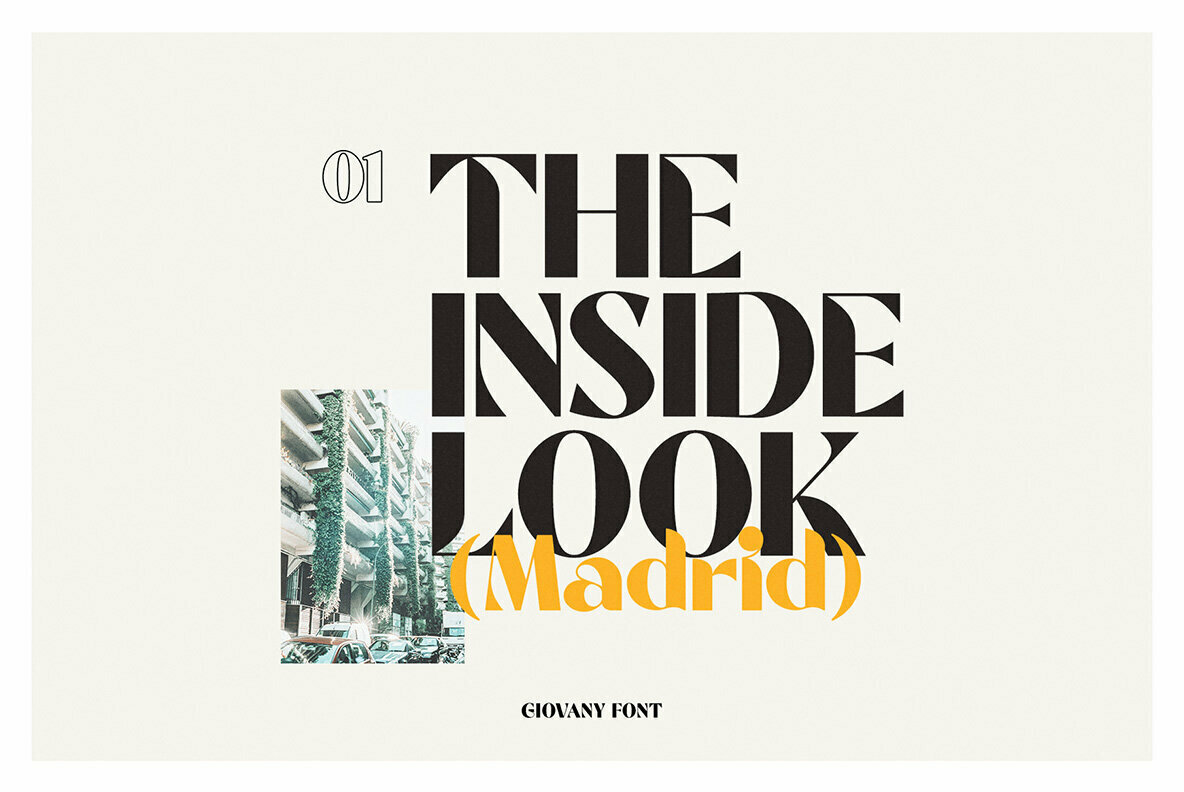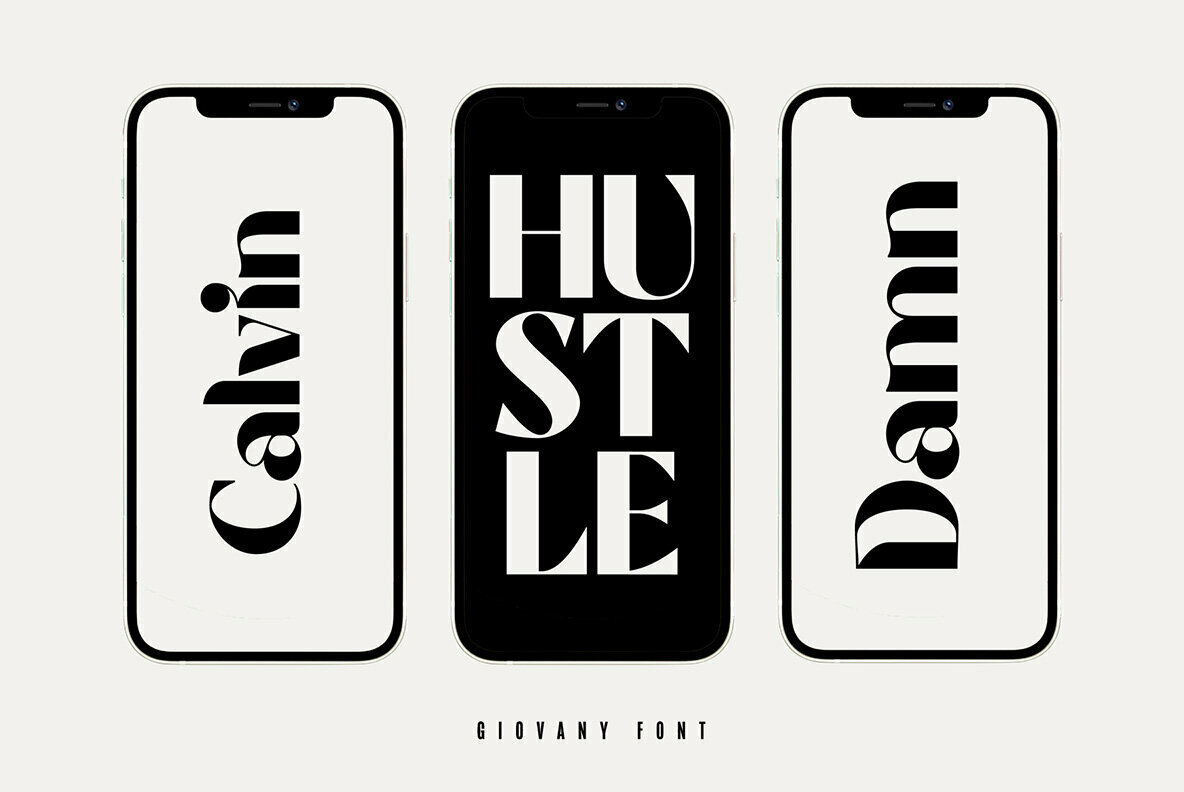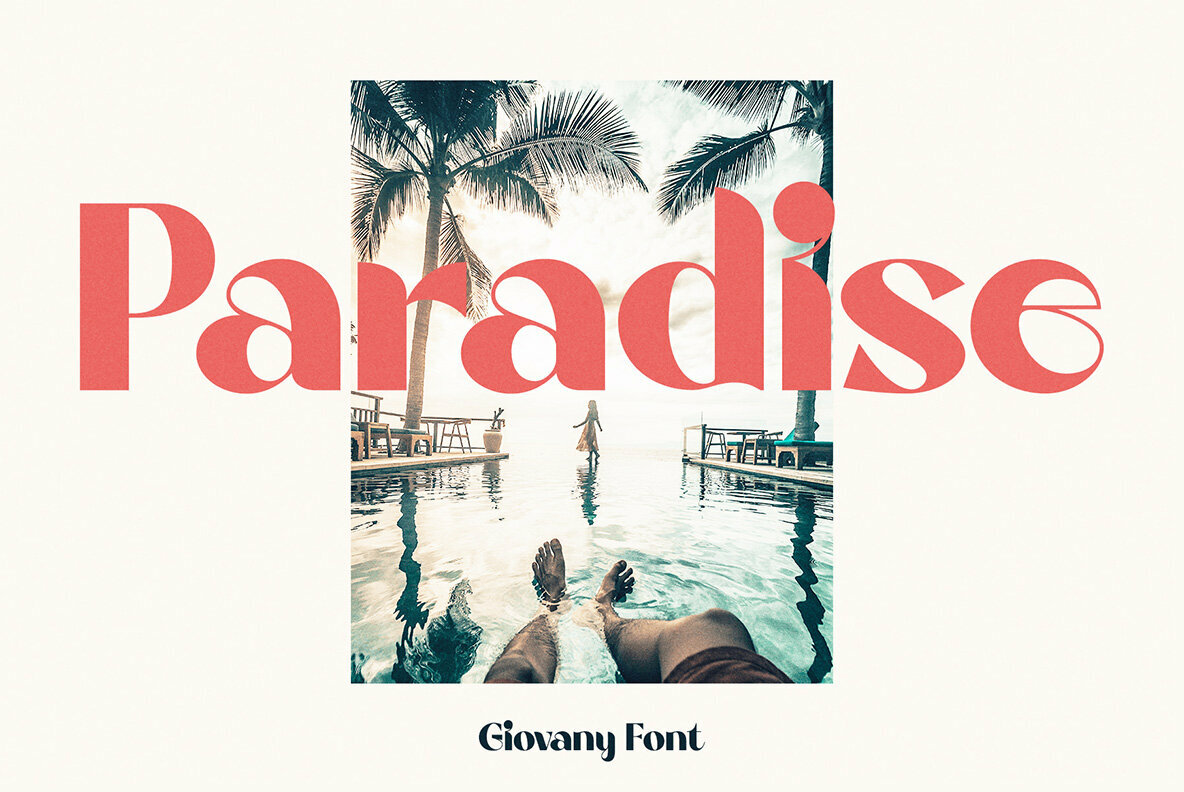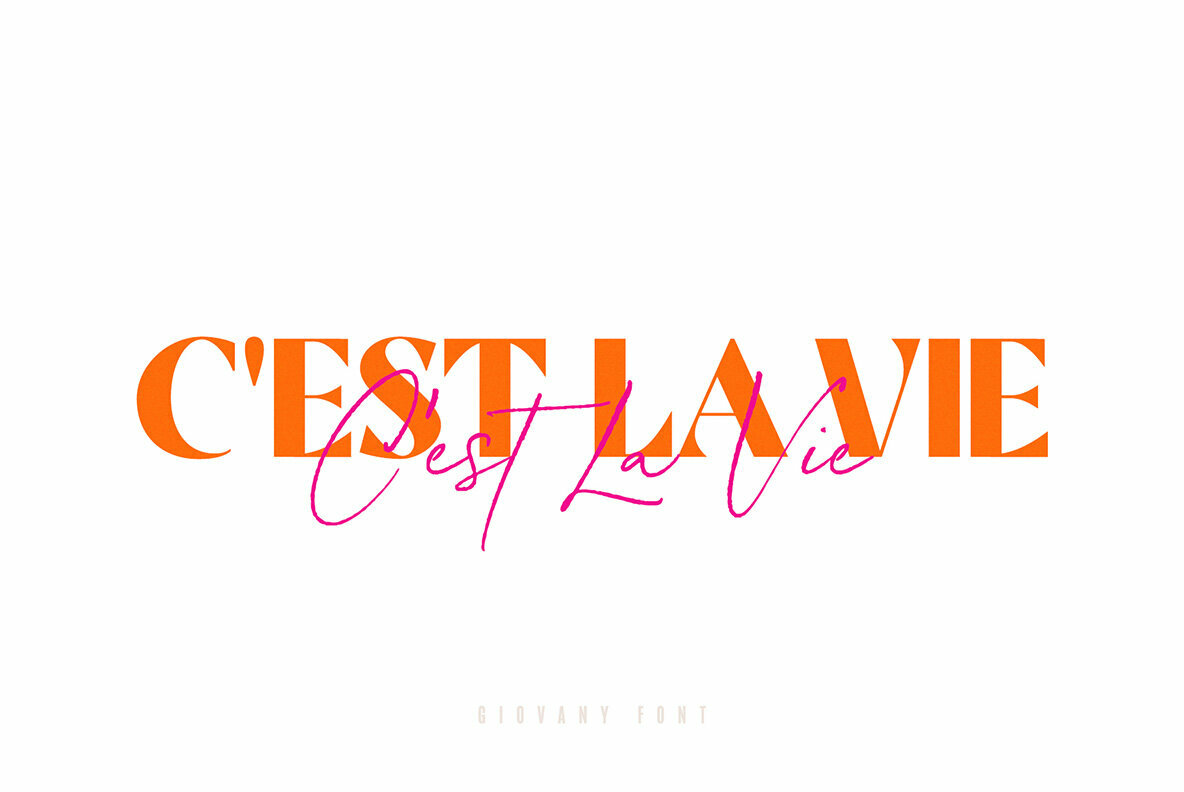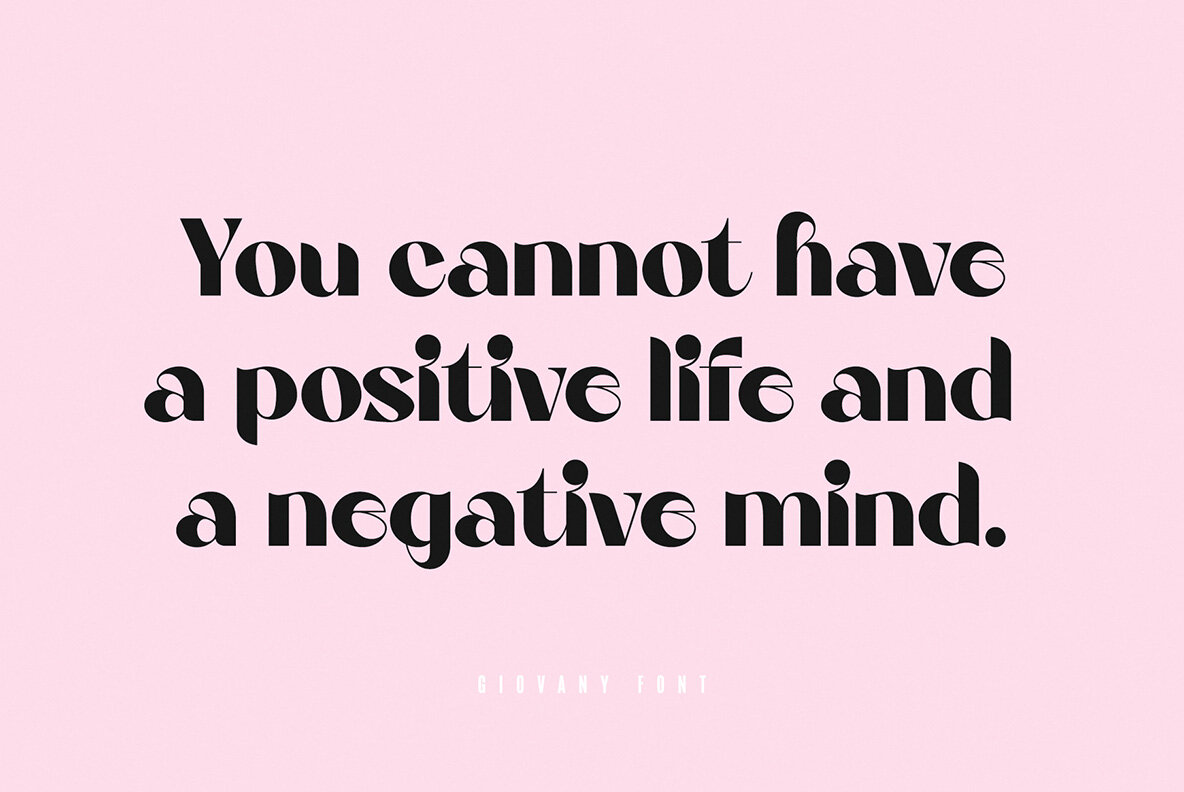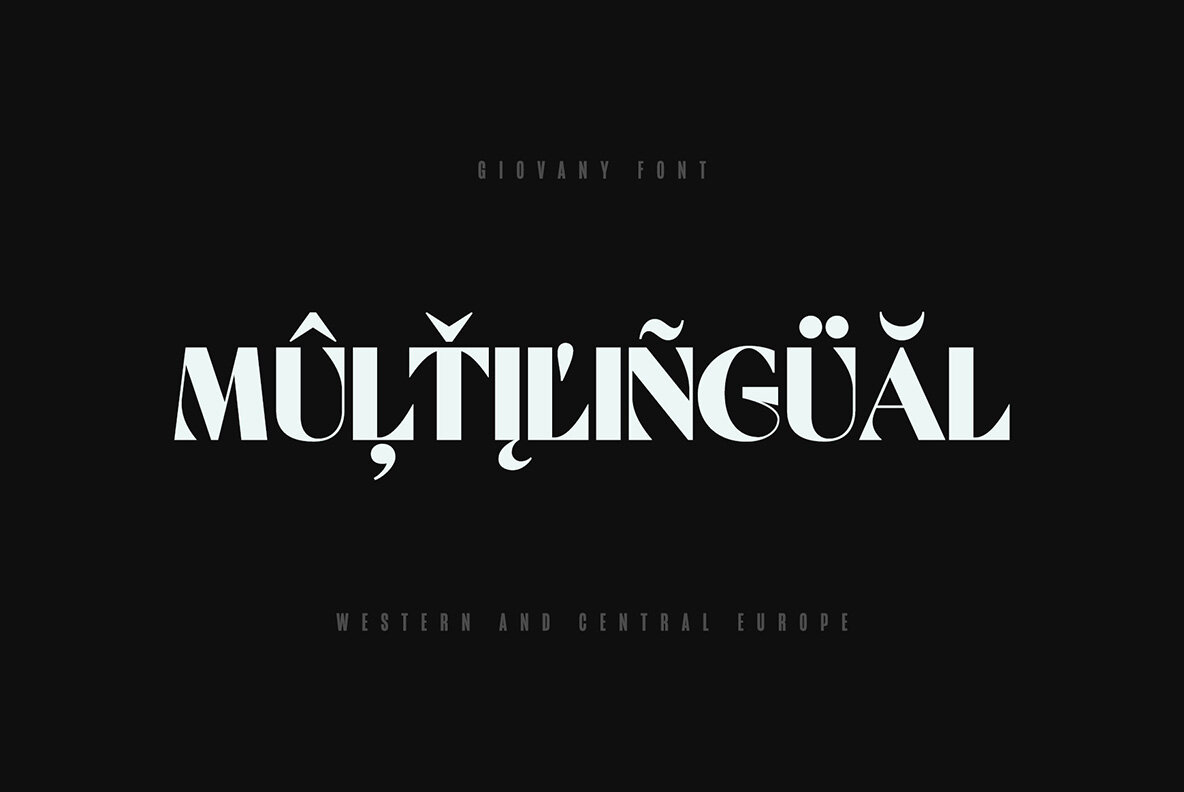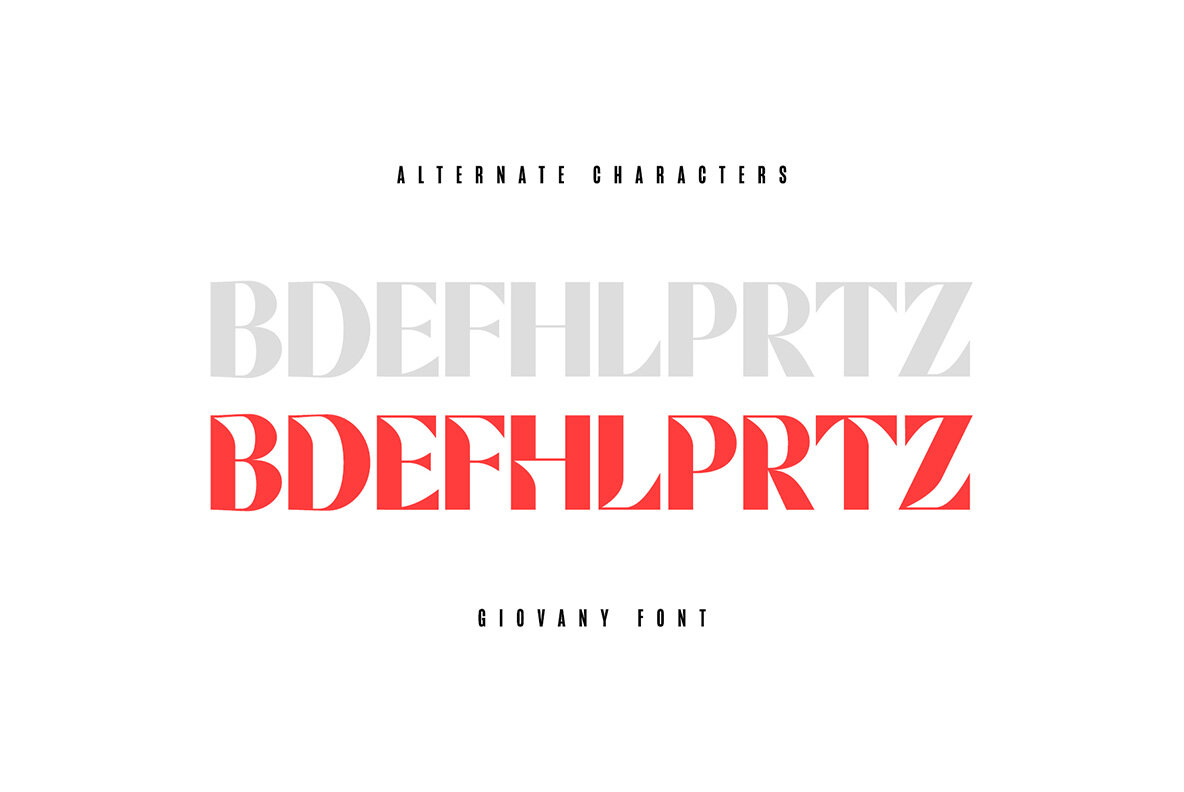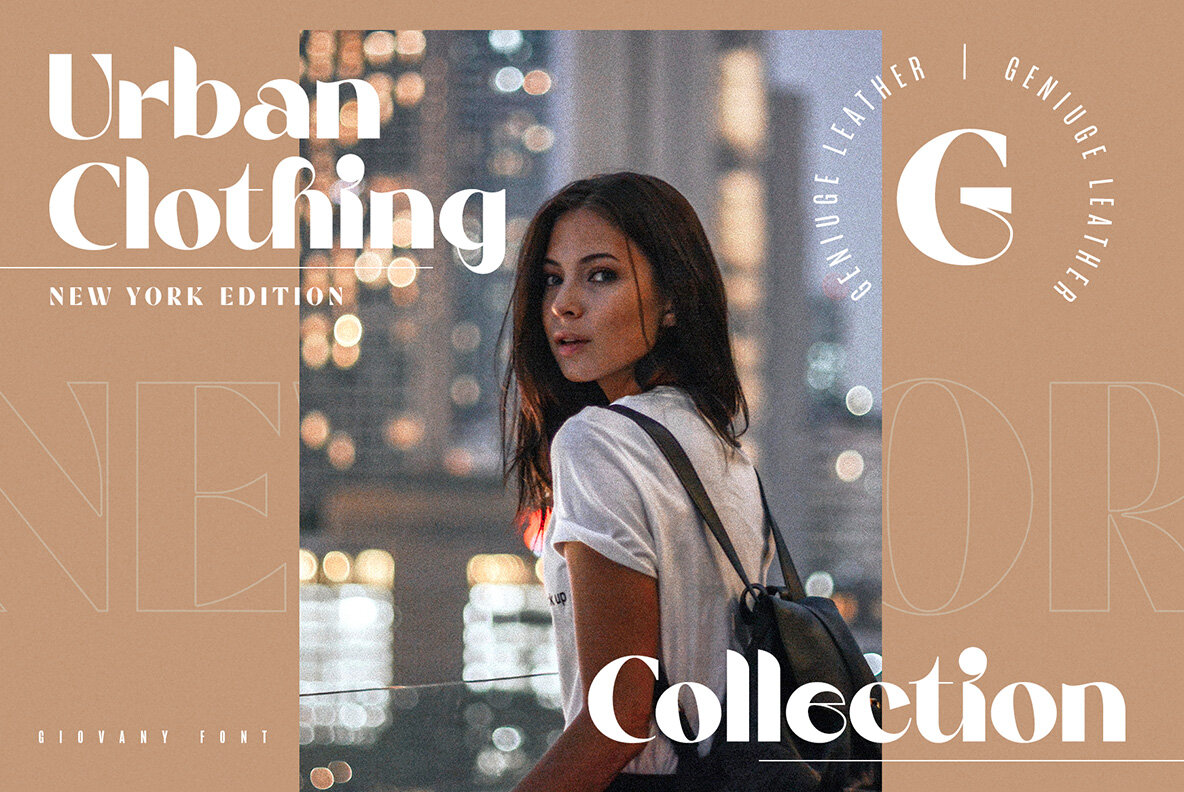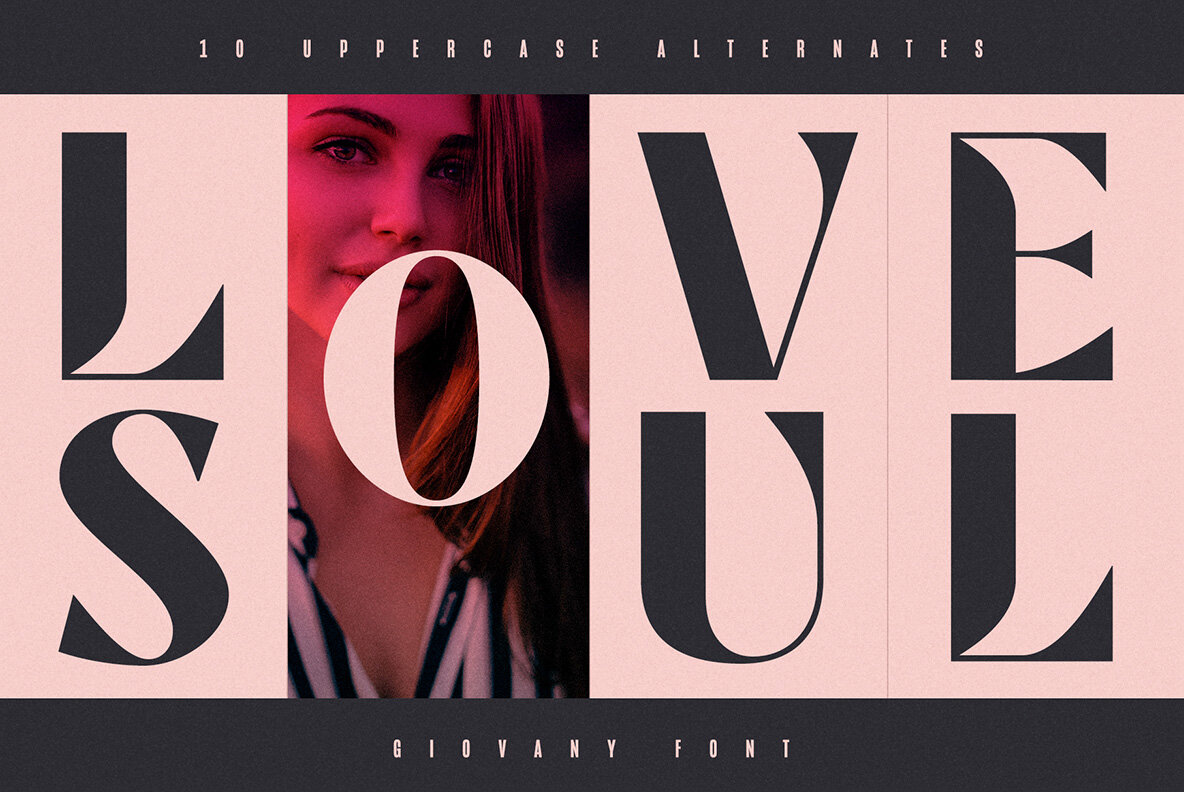
Giovany Font
Giovany Regular
Evoking the charm of 70's vintage fashion posters, Giovany is a font that seamlessly blends retro elegance with contemporary style. Designed with versatility in mind, Giovany supports multilingual characters for Western and Central European languages, making it suitable for global applications. Its primary purpose is to enhance headlines, titles, and short texts.Giovany: A Fusion of Vintage and Modern Elegance